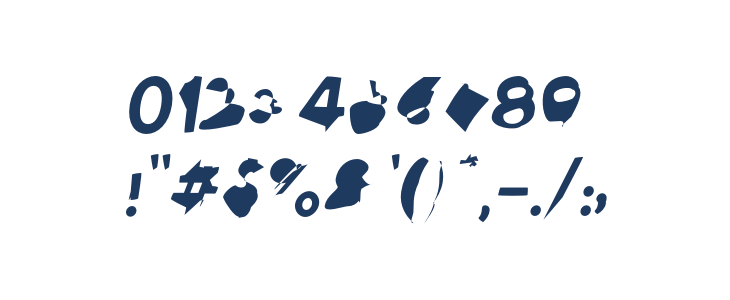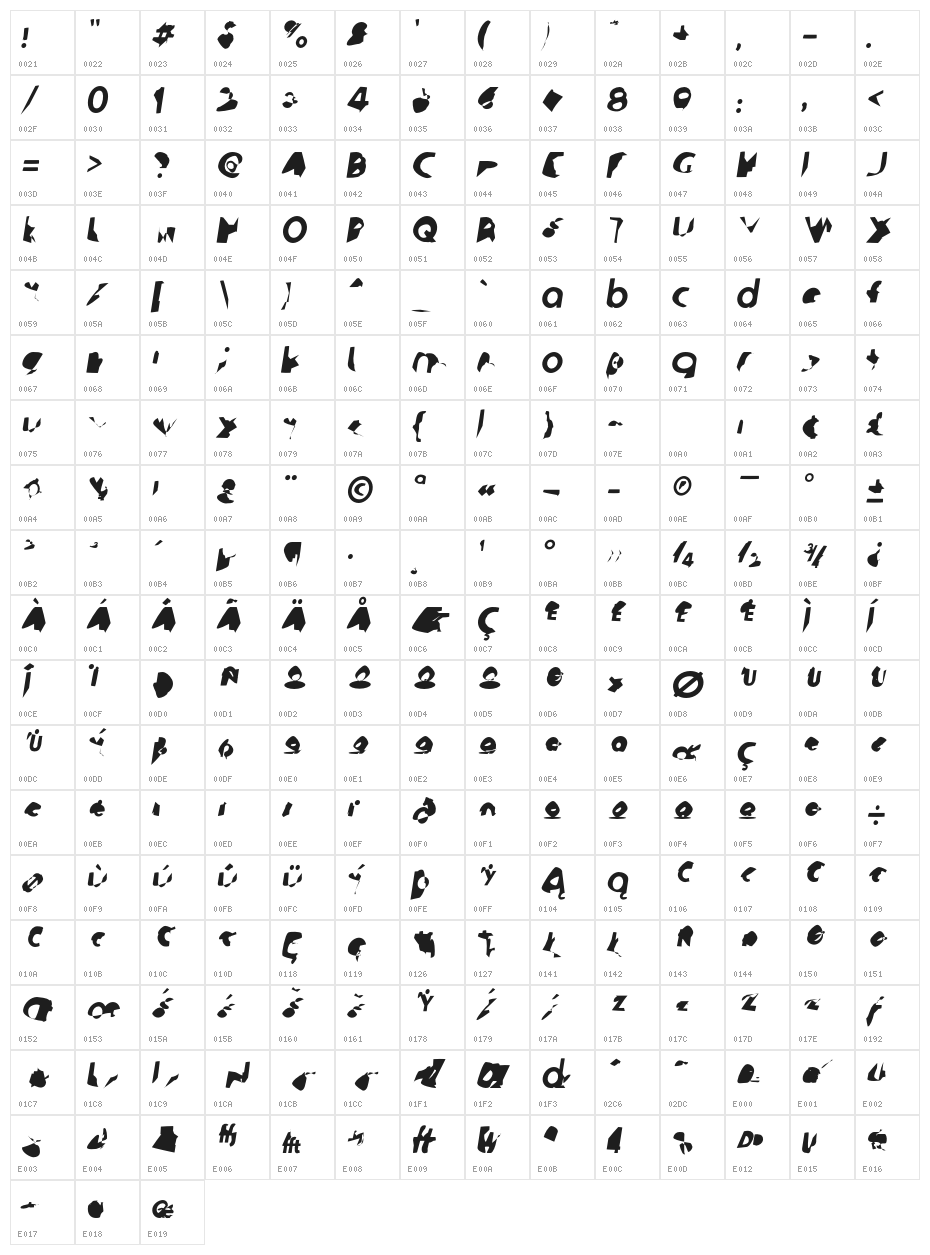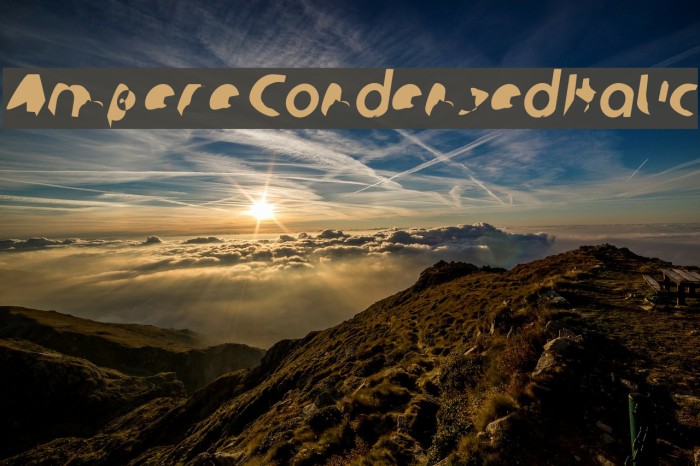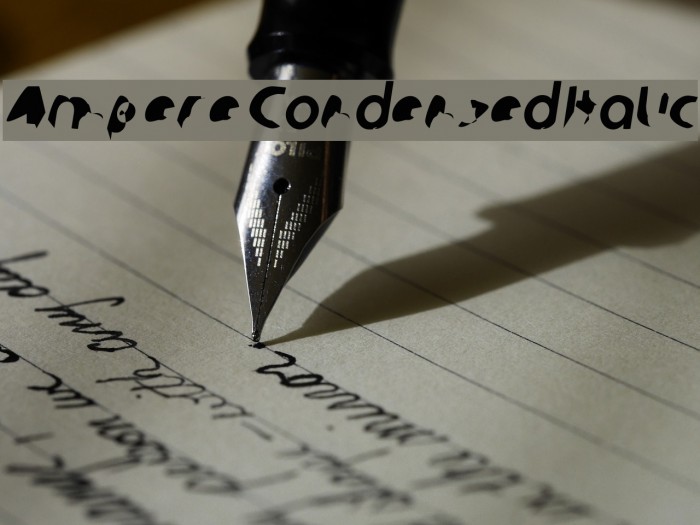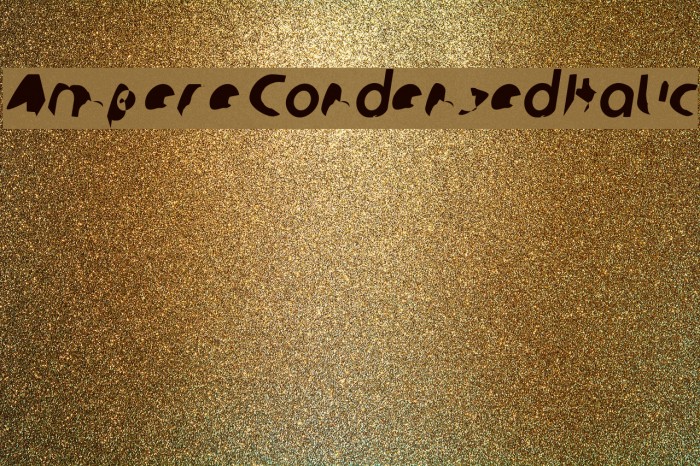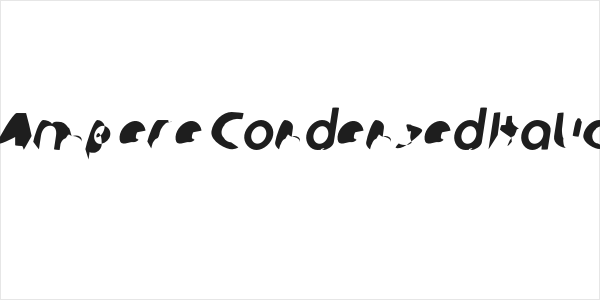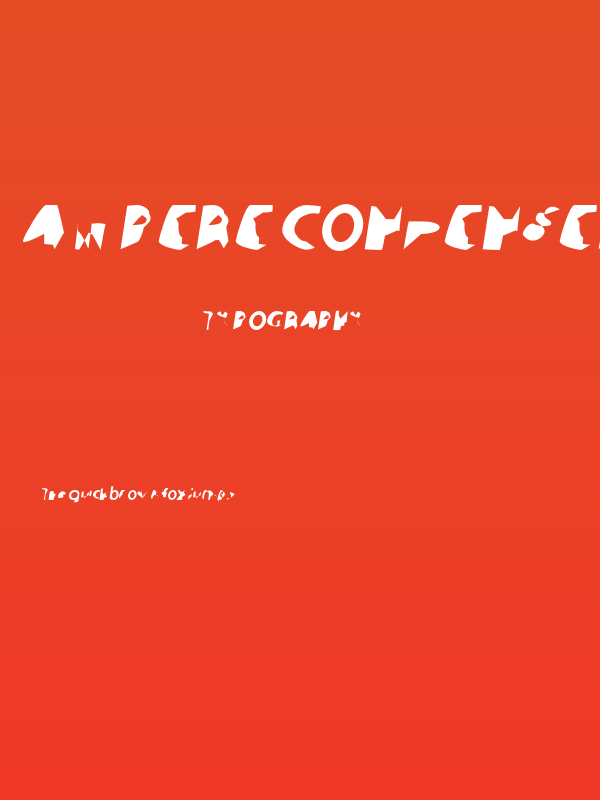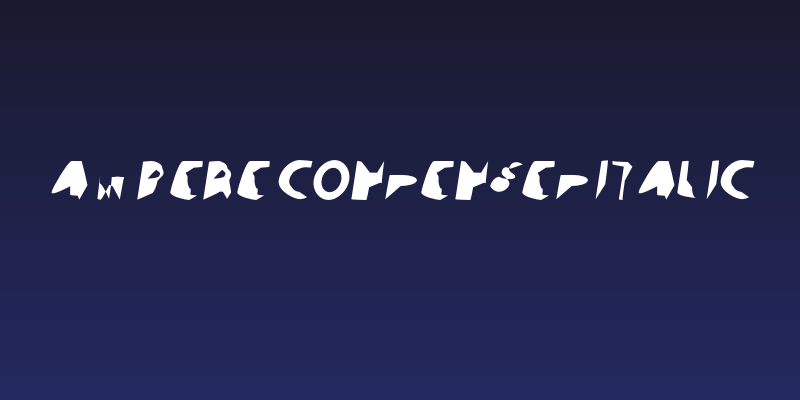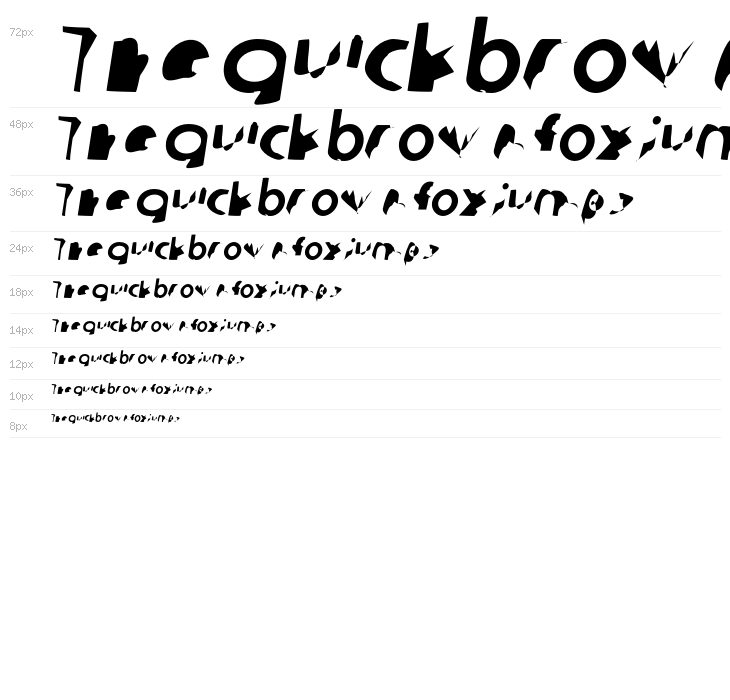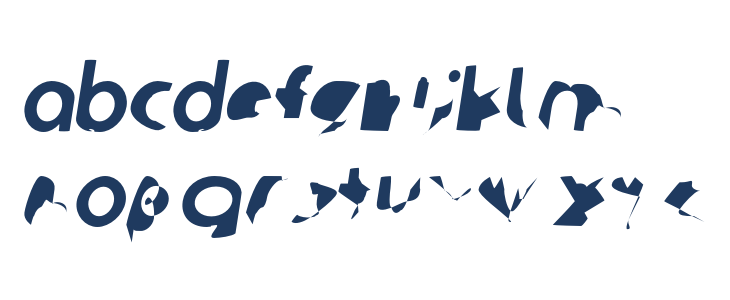
Ampere Condensed Italic Font
Ampere Condensed Italic Description
This font presents a highly stylized and abstract design, characterized by its fragmented and distorted letterforms. The characters appear as if they have been shattered or sliced, creating a dynamic and edgy visual effect. This unique style gives the font a modern and avant-garde appearance, making it stand out in any design project. The uppercase and lowercase letters maintain this fragmented aesthetic, while the numbers and special characters follow suit, ensuring consistency across the typeface. The overall impression is one of boldness and creativity, suitable for projects that require a distinctive and unconventional look.